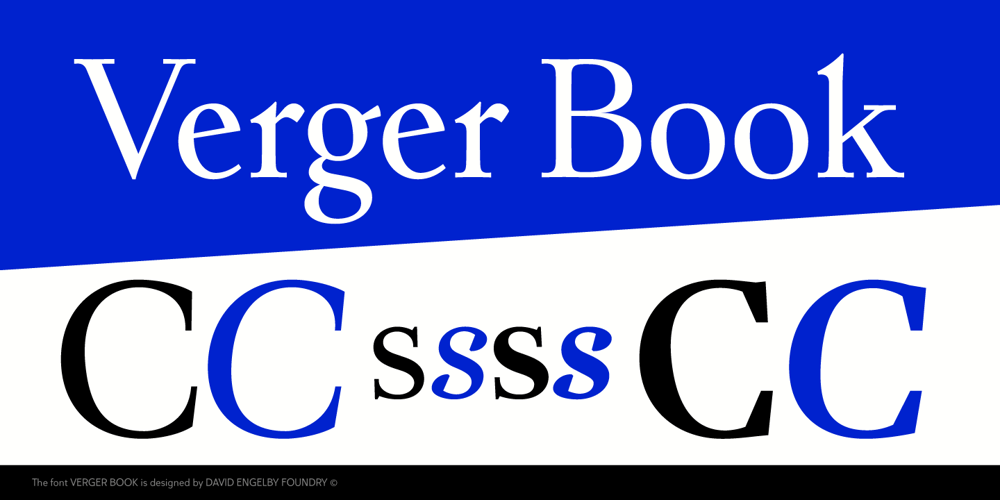
Verger Book
Verger Book font
Verger Book Font Family was designed by David Engelby and published by David Engelby Foundry. Verger Book contains 4 styles and family package options. The font Verger Book is the little brother of Verger. It’s a sturdy serif antiqua and your companion in legible and solid typographic design. Verger Book has several expressive and distinctive styles, especially in the design of its italic versions.